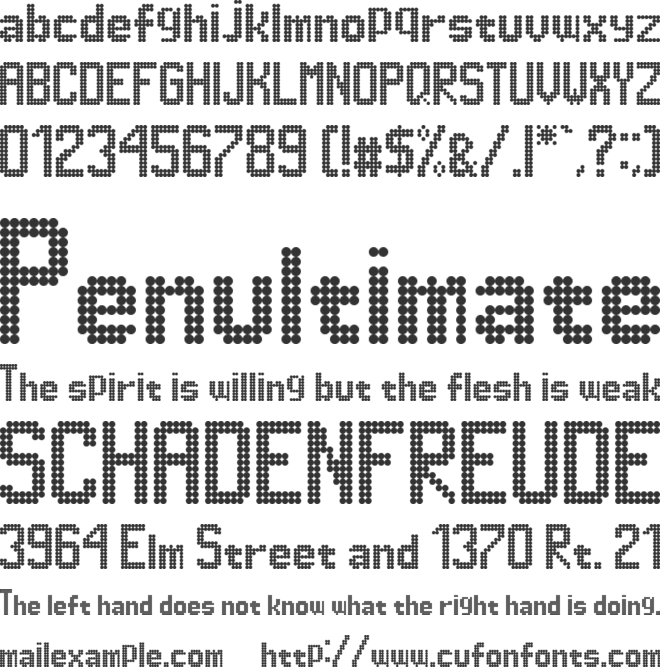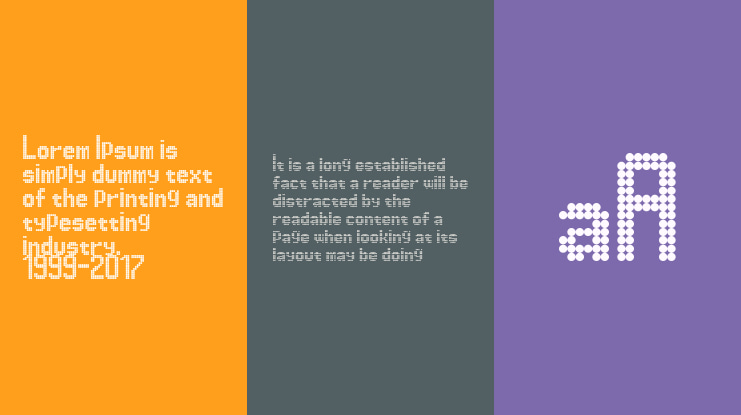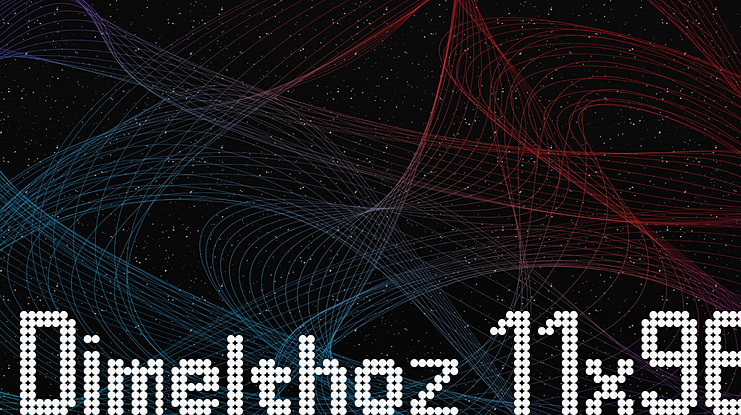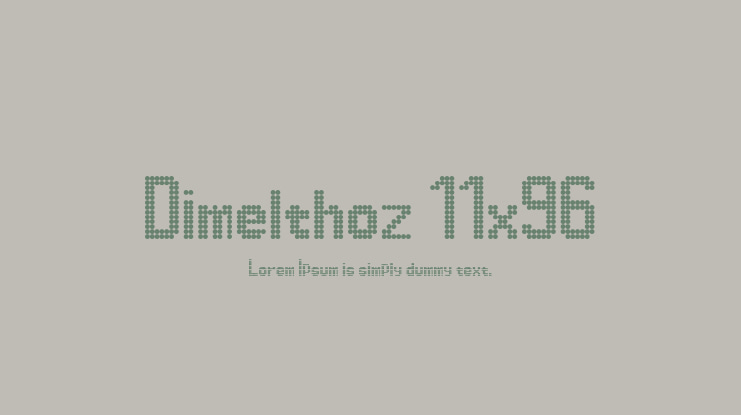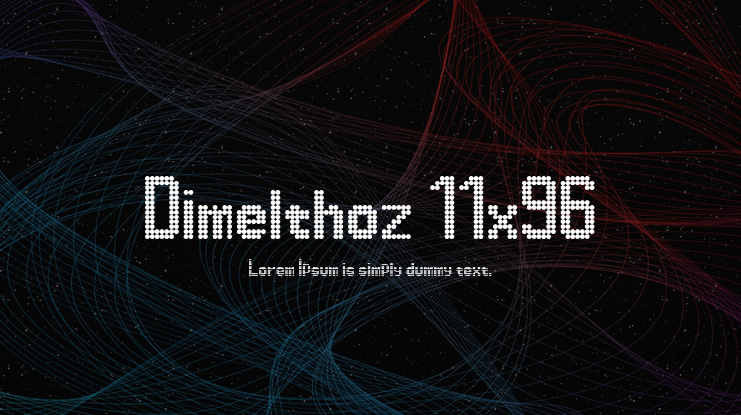
Dimelthoz 11x96 Font
Based on Dimelthoz led board.
Version 1.1.0 Lowercase Characters were added
Version 1.0.3 "6" and "9" were fixed "R" was updated